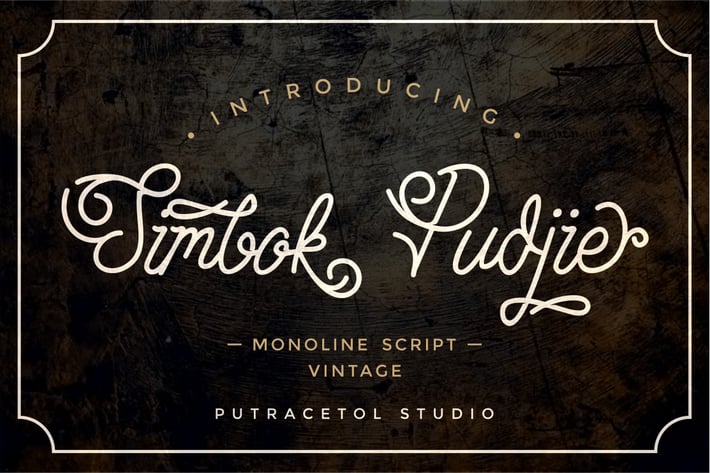
Simbok Pudjie - Monoline Script Font
Simbok Pudjie
Simbok Pudjie is a monoline script font with a classic and vintage touch. Can be used for various purposes such as headlines, titles, heading, logos, posters, invitation,book, branding, booklet, flyer and any creative design.
This font comes with many features such as ligatures, alternate, etc and also support multilingual.